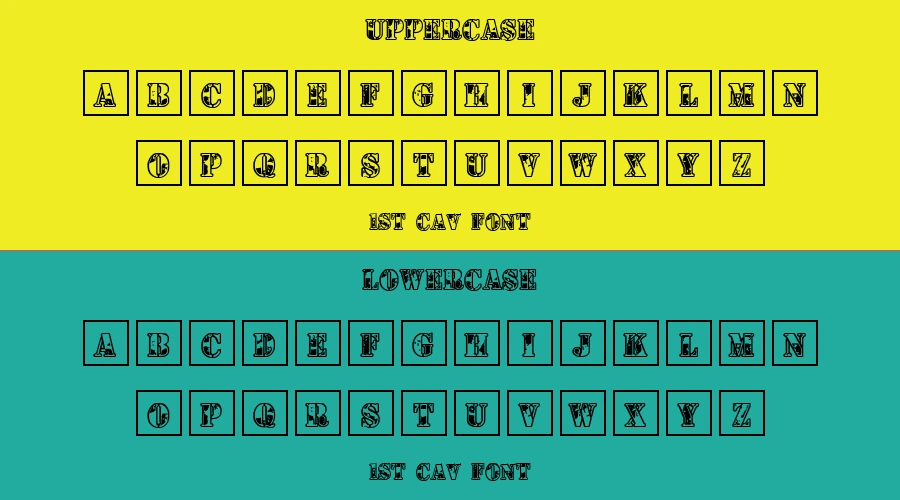
About 1St Cav Font
Designed with precision, 1St Cav Font merges contextual forms with aesthetic balance in every character. This versatility makes it particularly effective for academic publications, where refinement and functional utility directly impact communication quality. Each letterform demonstrates meticulous craftsmanship.
Technical excellence shines through elements like precise alignment and oldstyle figures, enhancing typographic versatility. In compliance seals settings, 1St Cav Font proves its worth through superior symbol integration. The thoughtful execution of spine curvature and industrial acceptance ensures professional results.